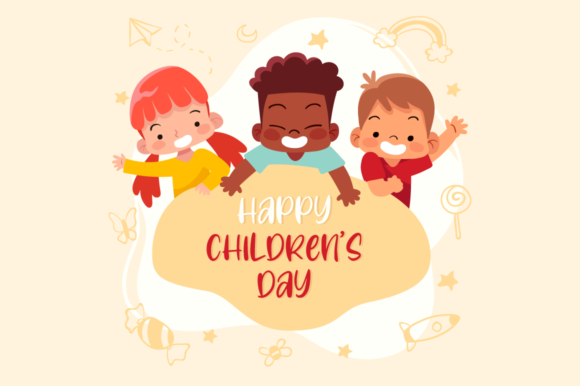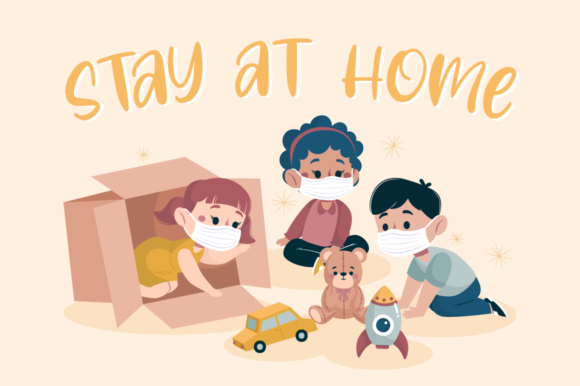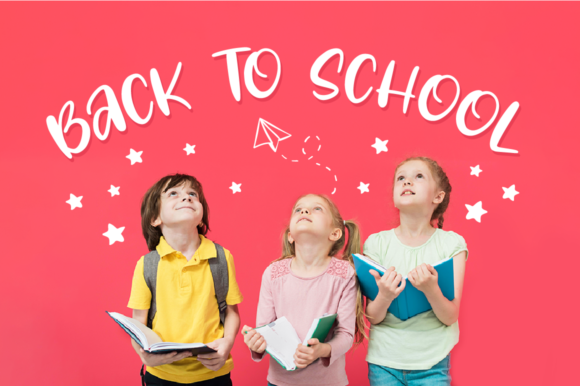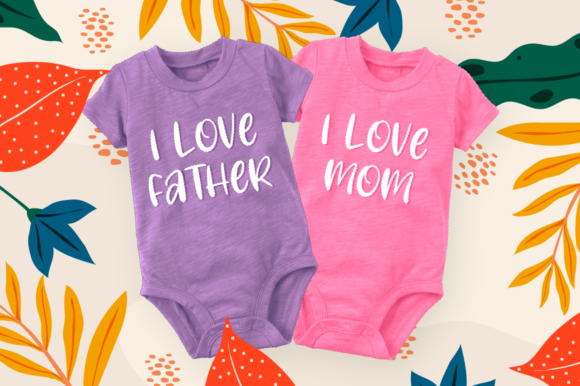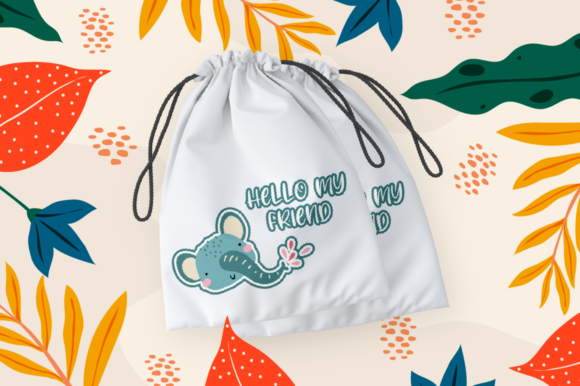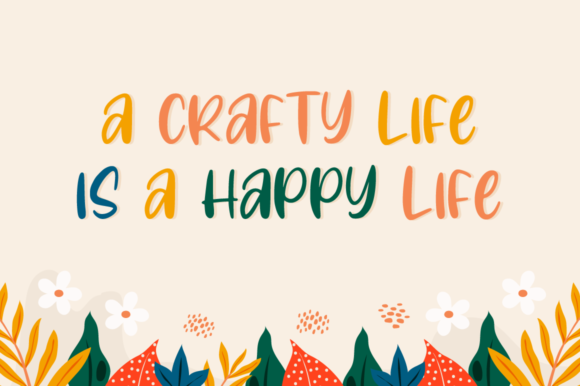
Introduction to Craftype Font
Remember that moment when you were working on a creative project and needed the perfect font to bring it to life? The one that would make your designs stand out and leave a lasting impression? That’s exactly what the Craftype Font is designed to do. This playful display font is a game-changer for designers looking to add a fun touch to their work.
With its high-quality design and transparent background, the Craftype Font is a versatile resource that can be used for a wide range of creative projects, from crafting and scrapbooking to posters and party invitations. And the best part? It’s available for free download, making it an invaluable addition to any designer’s toolkit.
Whether you’re a seasoned pro or just starting out, the Craftype Font is a valuable resource that will help you take your designs to the next level. So why settle for a generic font when you can have a unique and eye-catching one like Craftype Font?
Key Features of Craftype Font
- Unique, modern design with a transparent background for versatility
- Supports a wide range of languages, making it ideal for international projects
Honest Review: Craftype Font
I recently stumbled upon the Craftype Font, and I must say it’s been a game-changer for my design projects. As a designer, I’m always on the lookout for high-quality fonts that can elevate my work and give me the edge I need to stand out.
What works well: ✨ The Craftype Font is incredibly versatile and can be used for a wide range of creative projects, from branding and logos to web design and digital art. The font is also available for free download, making it an excellent design resource for designers of all levels.
However, there are a few limitations: ⚠️ The font may not be suitable for all types of projects, particularly those that require a more traditional or classic look. Additionally, the font may not be compatible with all operating systems or software.
Overall, I’m impressed with the Craftype Font and would highly recommend it to designers who are looking for a high-quality, versatile font for their creative projects.
- Suitable for a wide range of creative projects
Tips for Getting the Most Out of Craftype Font
Here are some tips for getting the most out of Craftype Font: use it in combination with other design elements, experiment with different font sizes and styles, and take advantage of its transparent background to create visually appealing designs.
Craftype Font is suitable for a wide range of creative projects, including graphic design, branding, and digital design. Its high-quality design and transparent background make it an ideal choice for designers looking to add a touch of sophistication to their work.